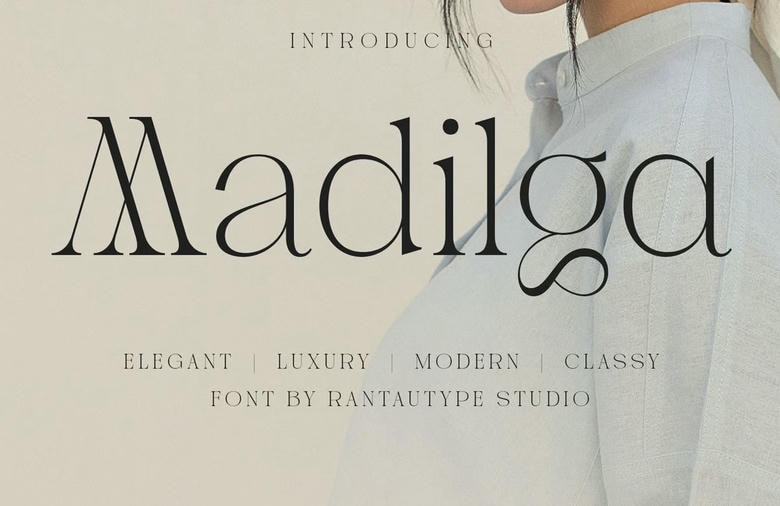
Madilga Font
Madilga is Classy luxury serif font with beautiful typographic harmony. Madilga come with sleek shape and perfect curves. Madilga bring touch of sophistication to your design project.
Madilga is a professional choice for any creative endeavor, chic, lifestyle design such as logotype, advertisements, watermark on photography, stationery, branding project, display and magazine, invitation, corporate brand, product design, label, business project and many other project with luxury touch.
Madilga Serif Font